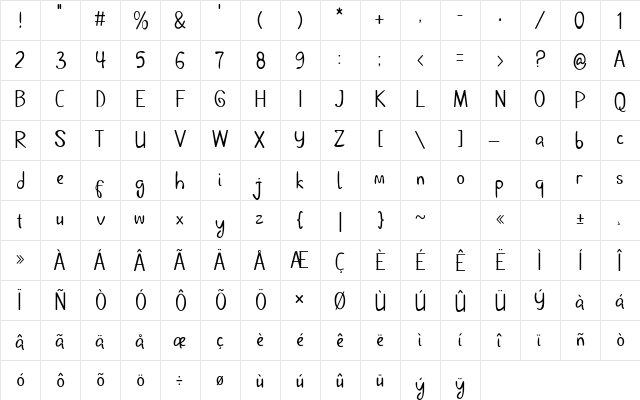
Dhestscripter Regular
Design Context for Dhestscripter Typeface
Dhestscripter flows with the natural rhythm of handwritten lettering, making it ideal for designs that call for warmth and personal expression.
Font Pairing: Combine Dhestscripter with a simple geometric sans for maximum contrast — the tension between flowing curves and clean structure is a classic typographic pairing.
Pro Tip: Pair Dhestscripter with a clean sans-serif for supporting text. The contrast between fluid script and geometric structure creates an elegant typographic hierarchy.